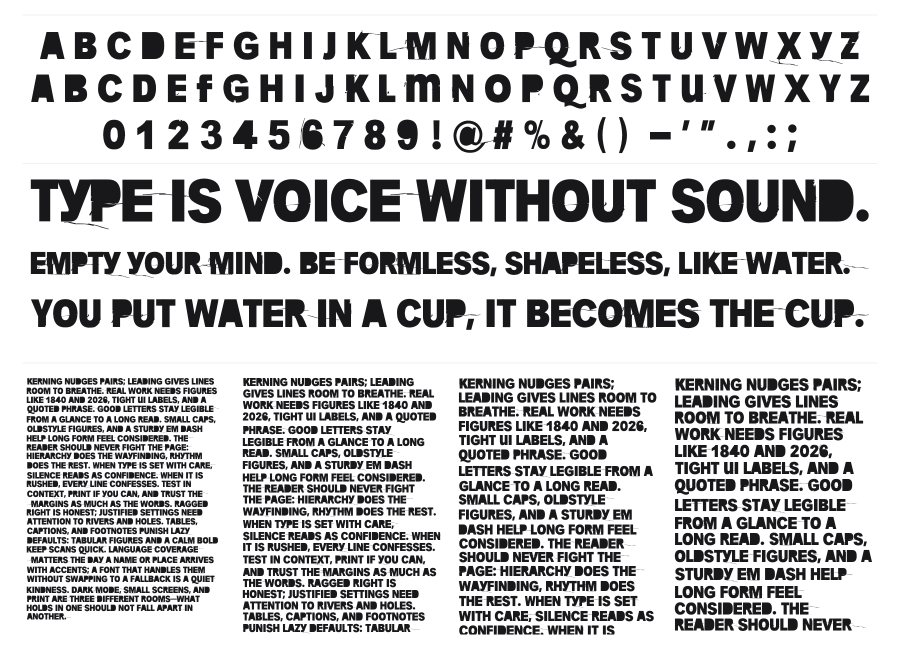
More Is Less 22
More Is Less 22 is a heavy grotesque sans pushed through a wringer of cracks, splits, and surface erosion. The damage feels printed rather than digital, as if stamped onto rough paper with an ink-starved press. It carries real weight in headlines, posters, and anywhere you need a blunt, battle-worn voice.